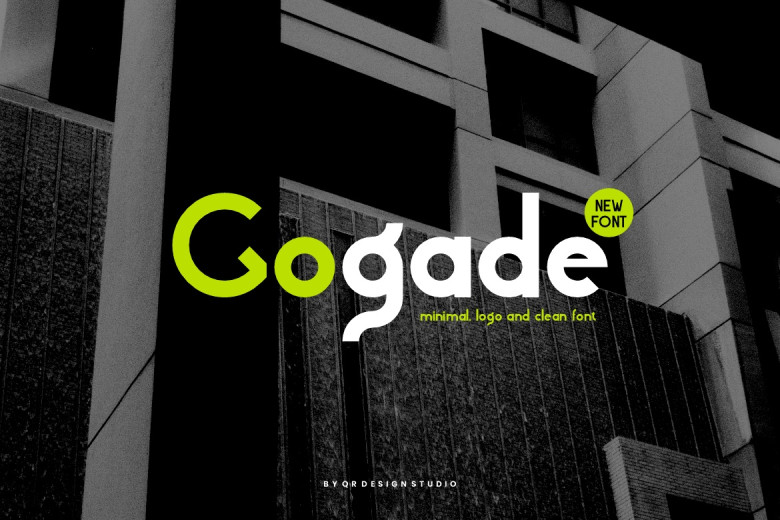
Gogade Font
Gogade is a sans serif font that is very colloquial, assertive and rather opinionated. In any case, this font will adorn the list of fonts that will certainly enhance the given theme – it is only a discoverer! This particular font can be incorporated into any branding concept irrespective of the kind of branding project whether it is a poster, logo or sports and many other usages. Good in ability, suitable in many different cases.
Gogade Sans Serif Font